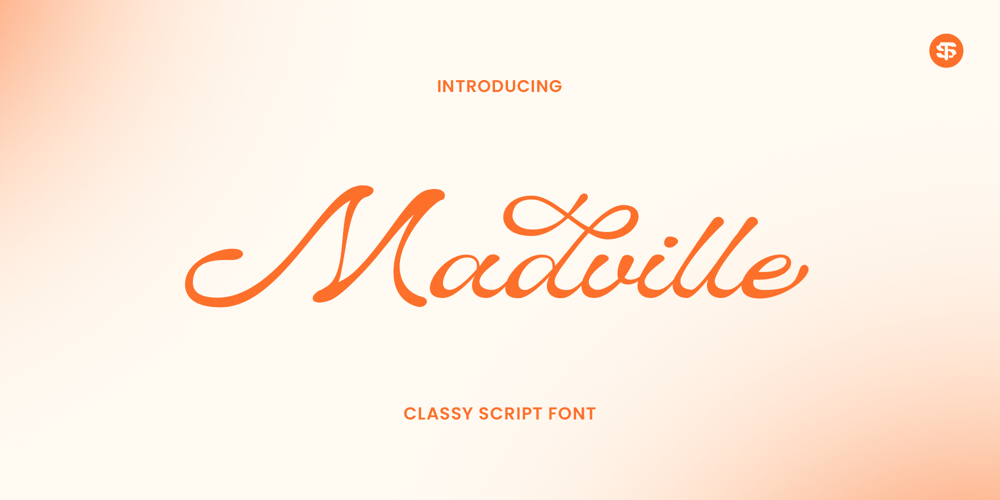
Madville Font Family was designed by Mhd Husaini and published by Sixtype Foundry. Madville contains 1 styles and family package options. Madville is not just another script font, it’s a testament to individuality and style. With its distinctively playful characters and charming imperfections, Madville exudes a handwritten charm that injects personality into any design. Whether you’re crafting a logo, composing memorable quotes, designing invitations, or embarking on any creative endeavor, Madville lends a unique flair that captivates the eye. This versatile font comes complete with uppercase and lowercase letters, numbers, punctuation marks, and comprehensive multilingual support, ensuring that your message resonates across diverse audiences and platforms. Elevate your designs with Madville, where every stroke tells a story of creativity and expression.